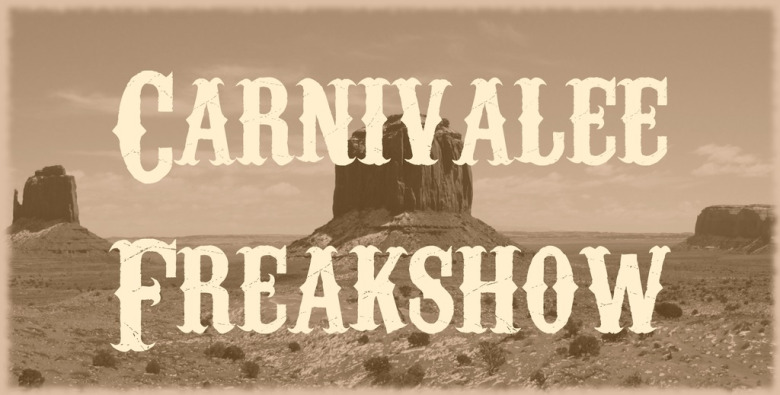
Carnivalee Freakshow Font
Carnivalee Freakshow is a high quality western display font that is designed by Chris Hansen and is available for free download personal & commercial use. The free version provides all uppercase and lowercase letters and a few special characters too.